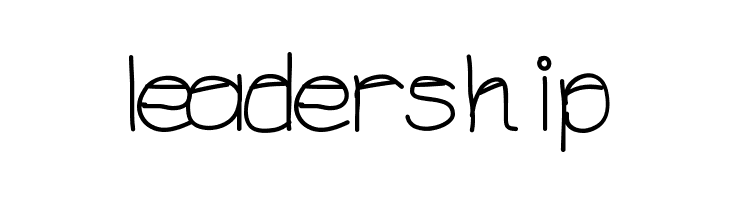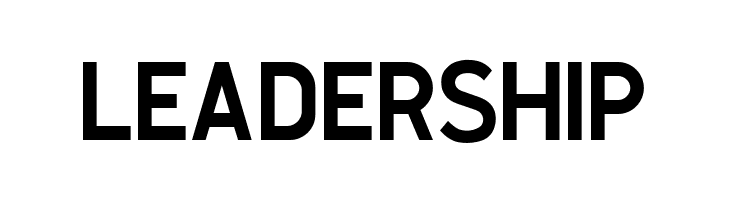
A bold, three-dimensional font with a striking shadow effect and geometric design.
An elegant, decorative font with intricate swirls and vintage charm.
A bold, decorative font with ornate serifs and intricate details.
An elegant, whimsical font with thin lines and decorative flourishes.
A bold, decorative font with vintage and western influences.
A bold, modern sans-serif font with clean lines and uniform strokes.
A fluid and elegant script font with a natural, cursive flow.
A flowing, cursive font with elegant, connected strokes and a handwritten appearance.
A bold, modern font with thick strokes and a strong presence.
A modern italic font with clean lines and a sleek appearance.
A sleek, modern, light italic sans-serif font with medium contrast.
A clean, modern sans-serif font with uniform geometric letterforms.
A modern sans-serif font with a slight italic slant and medium weight.
A modern, clean sans-serif font with uniform strokes and excellent readability.
A clean, modern sans-serif font with balanced proportions and high legibility.
A modern, semi-bold italic font with medium contrast and a sleek design.
A modern sans-serif font with a semi-bold weight, offering clarity and versatility.
A playful, hand-drawn font with tall, narrow characters and a whimsical style.
A bold, flowing script font with a handwritten style.
A playful and elegant script font with fluid, cursive strokes.
A bold, rounded font with a playful and friendly appearance.
A bold, oblique font with a dynamic and modern style.
A bold, blocky font with a 3D shadow effect and square framing.
A bold, geometric font with 3D block effects and sans-serif style.
An elegant, flowing script font with a calligraphic style.
A bold, slanted font with a modern and dynamic style.
A bold, angular font with a futuristic and chiseled design.
A playful, handwritten font with a casual and whimsical style.